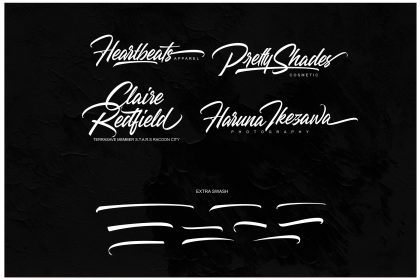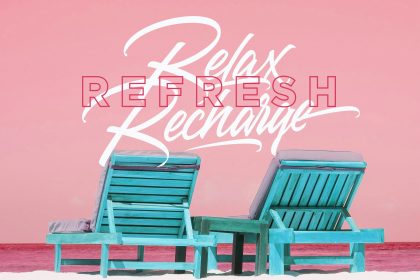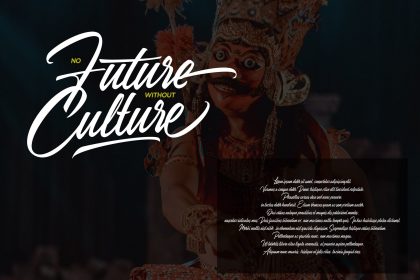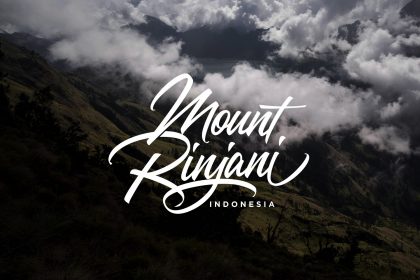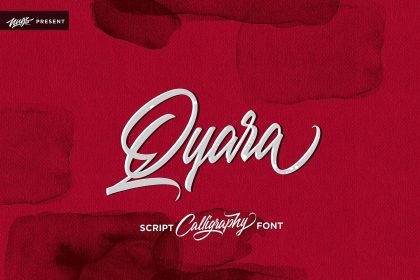
Qyara Calligraphy Font
Qyara Calligraphy Font – Free Demo
Hello world! A new script calligraphy font. This One is the Best Choice for You to make a Huge Project that looks Perfect and Natural! Introducing Qyara Font. Qyara is Script Calligraphy Typeface handwritten with elegant style. this font are great for various design like Logo, Product, Stationary, clothing brand and much more. Qyara includes full set of uppercase and lowercase letters, multilingual symbols, numerals, punctuation and ligatures.